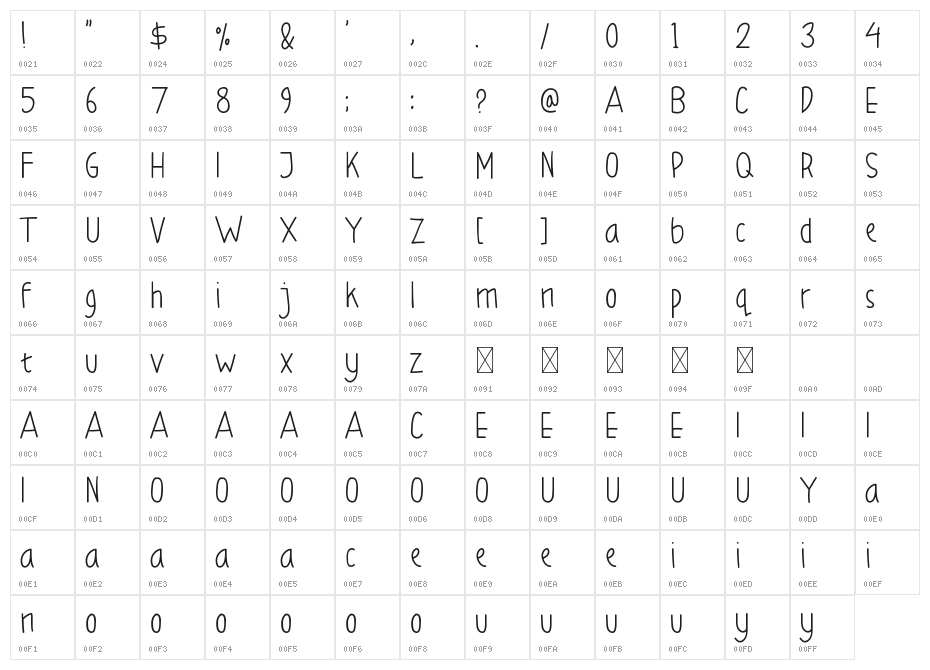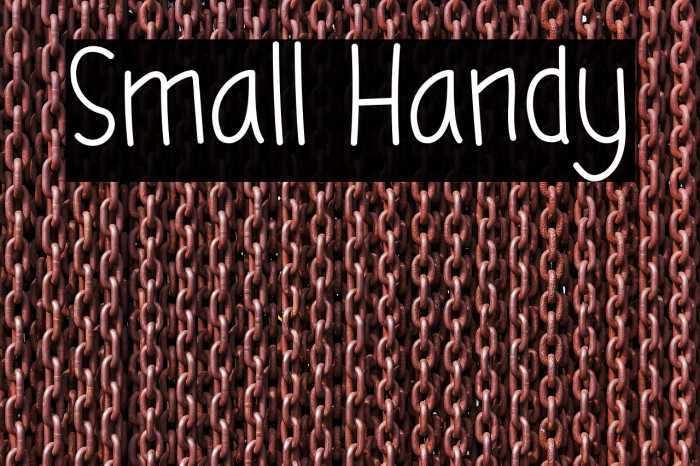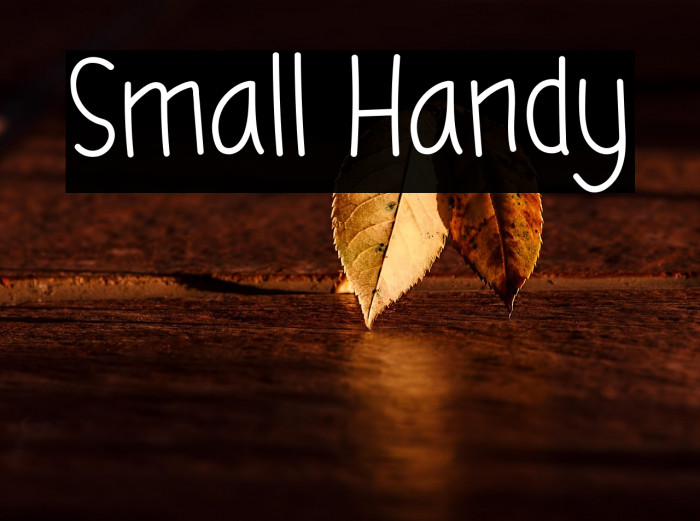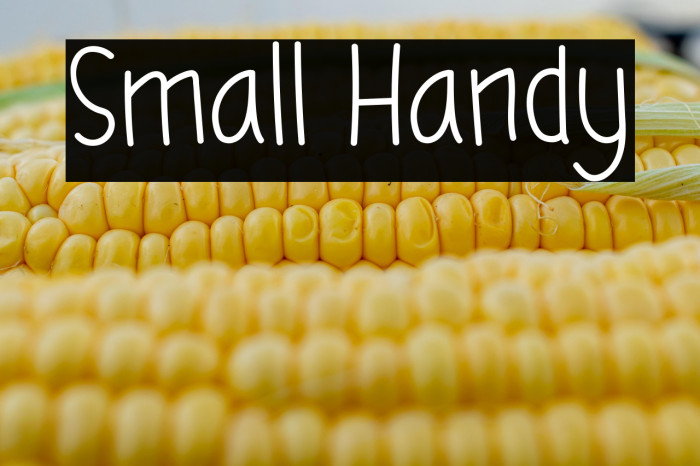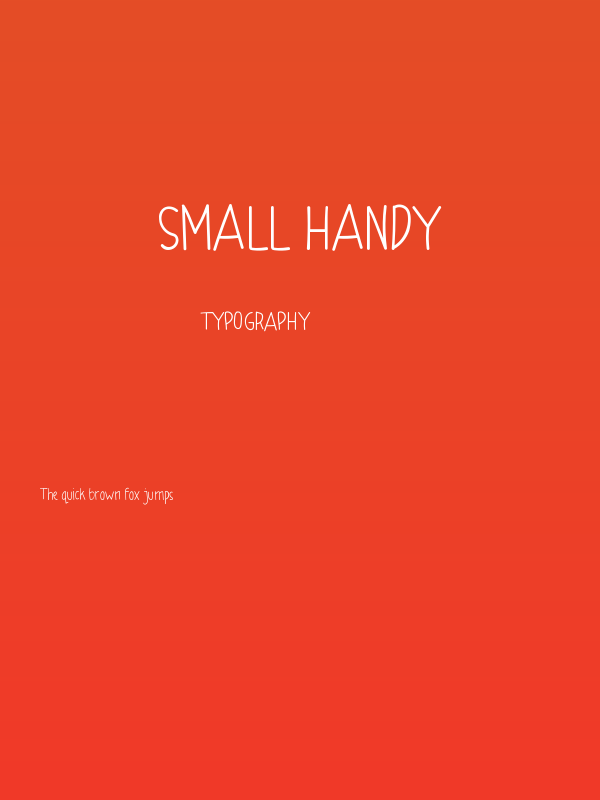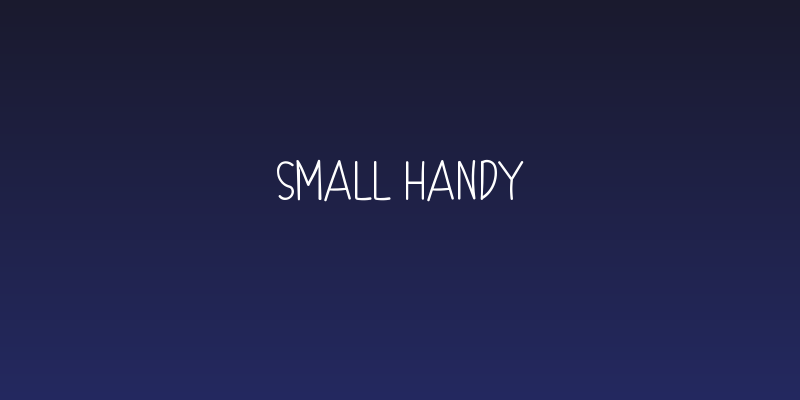
Small Handy Font
Small Handy Description
This font exudes a playful and casual vibe, characterized by its handwritten style that mimics natural penmanship. The letters are slightly irregular, adding to its charm and authenticity. The strokes are consistent in thickness, providing a uniform appearance across all characters. The uppercase and lowercase letters maintain a cohesive look, with rounded edges and a slight tilt that enhances its informal feel. Numbers and special characters are crafted with the same attention to detail, ensuring they blend seamlessly with the alphabet. This font is perfect for projects that require a personal touch, such as greeting cards, invitations, or informal branding materials.
| Overall Style | Casual |
| Use Case | Logos, Headlines, Informal text |
| Proposed Projects | Ideal for greeting cards, invitations, personal branding, and informal communications. |